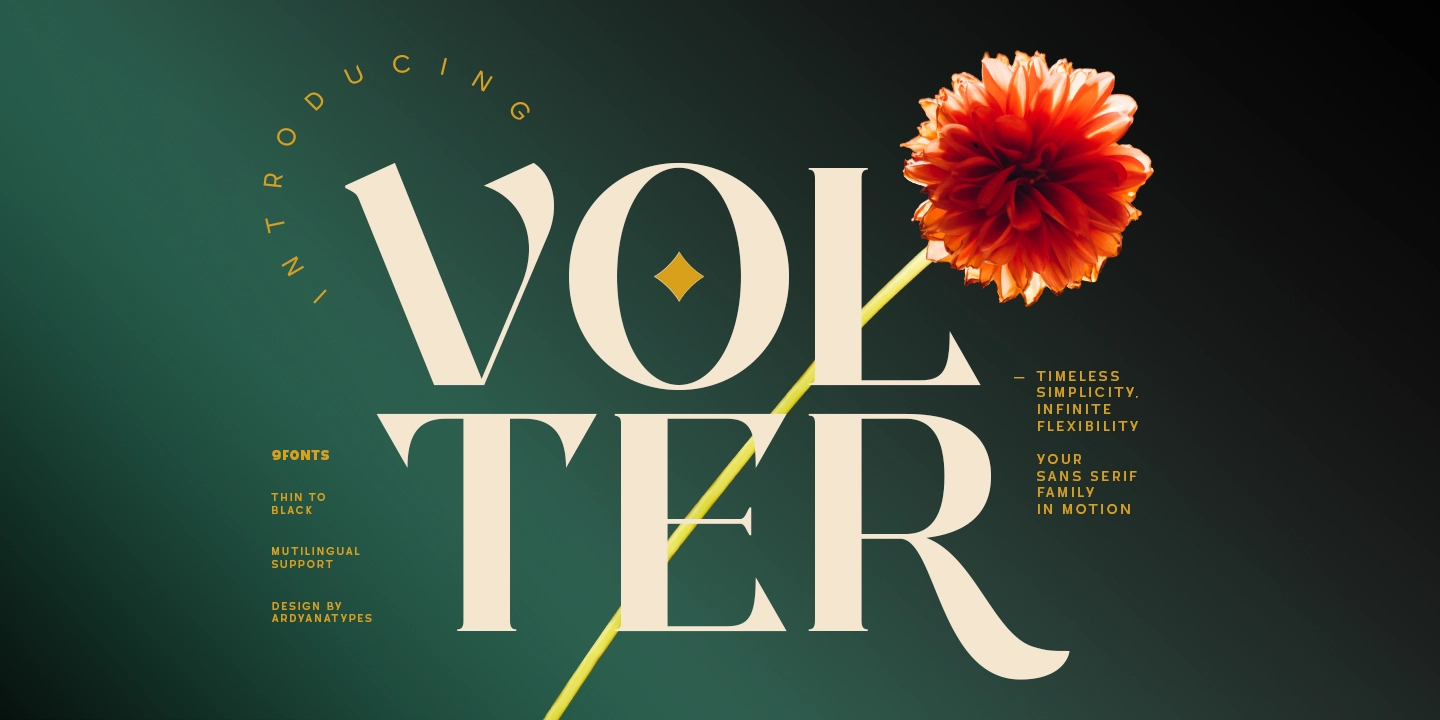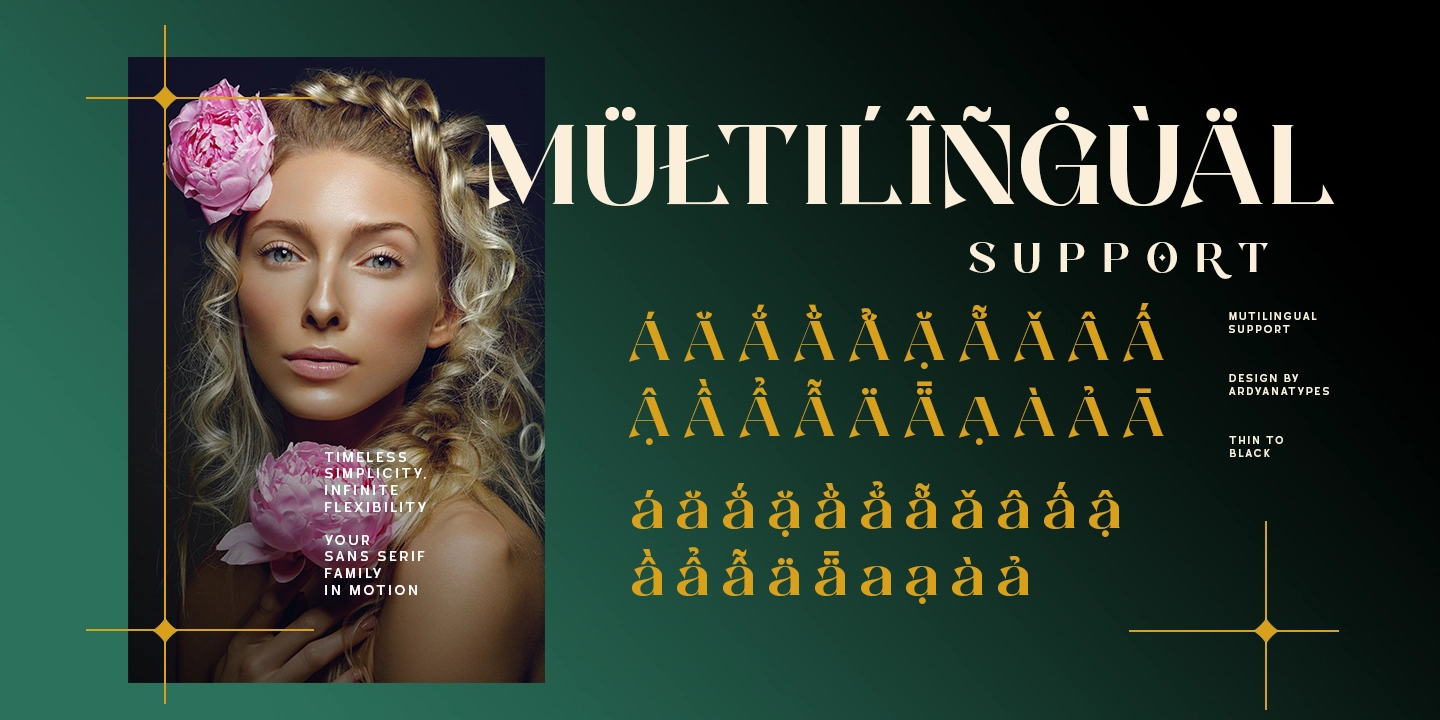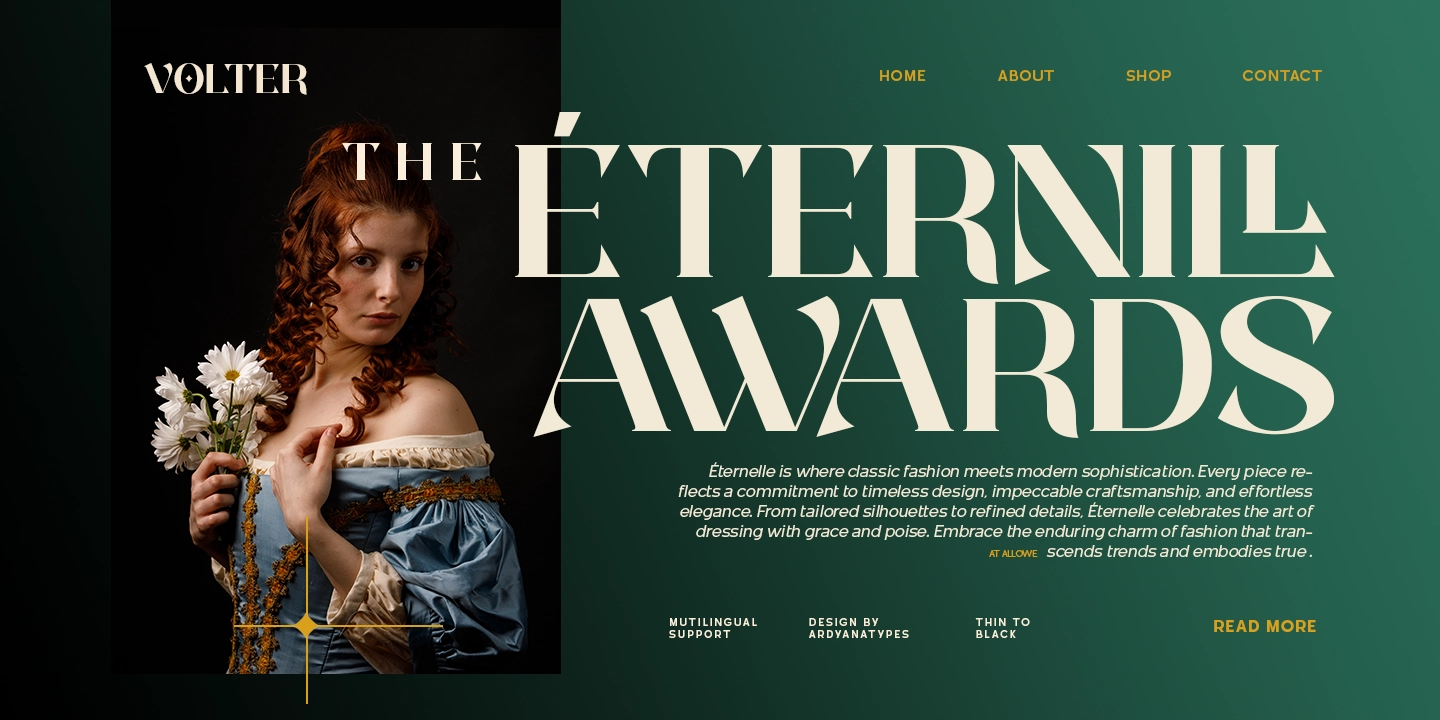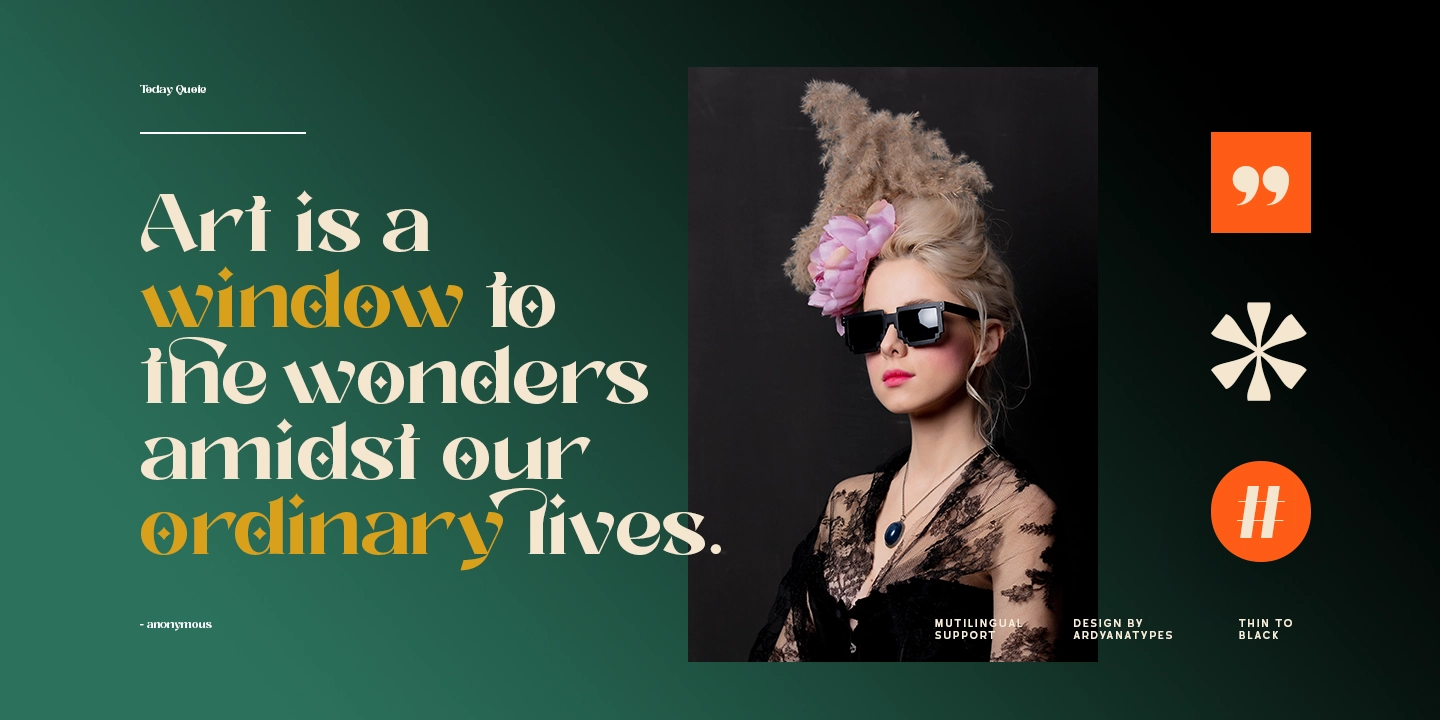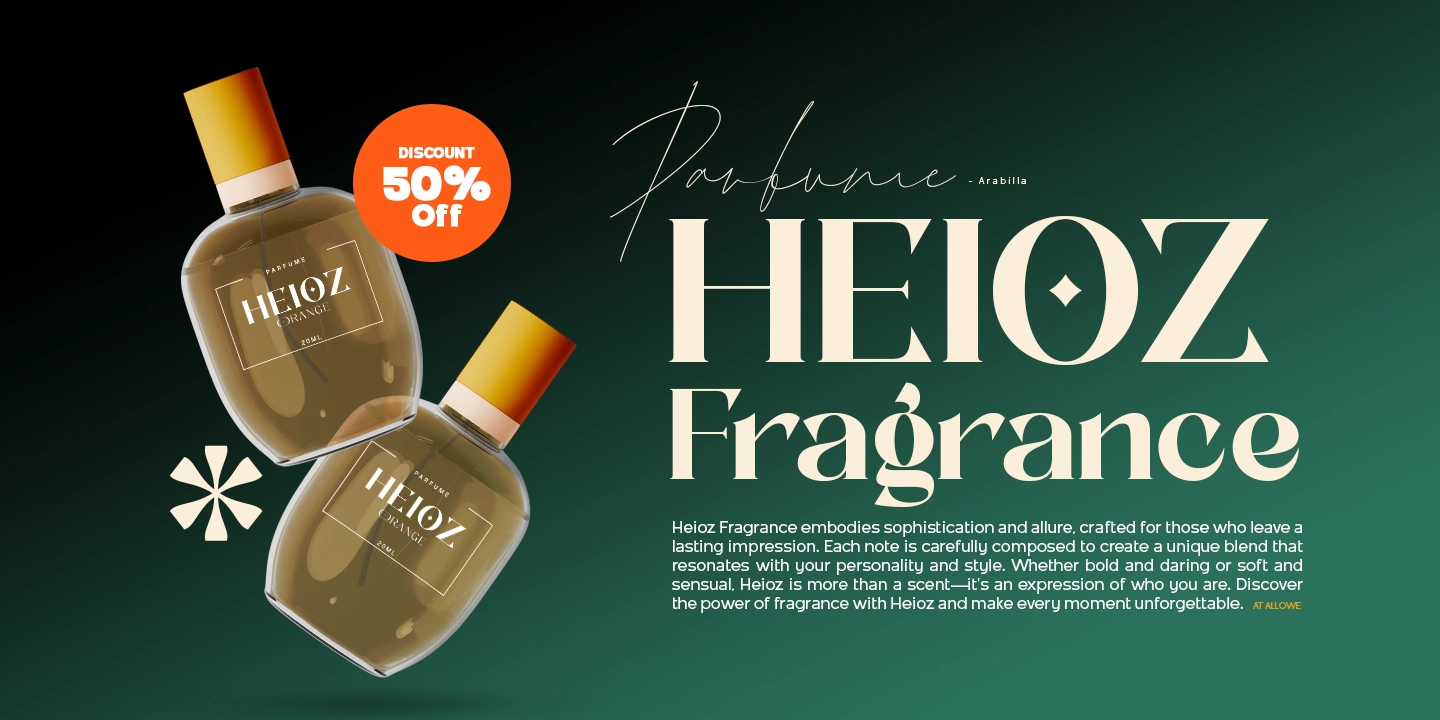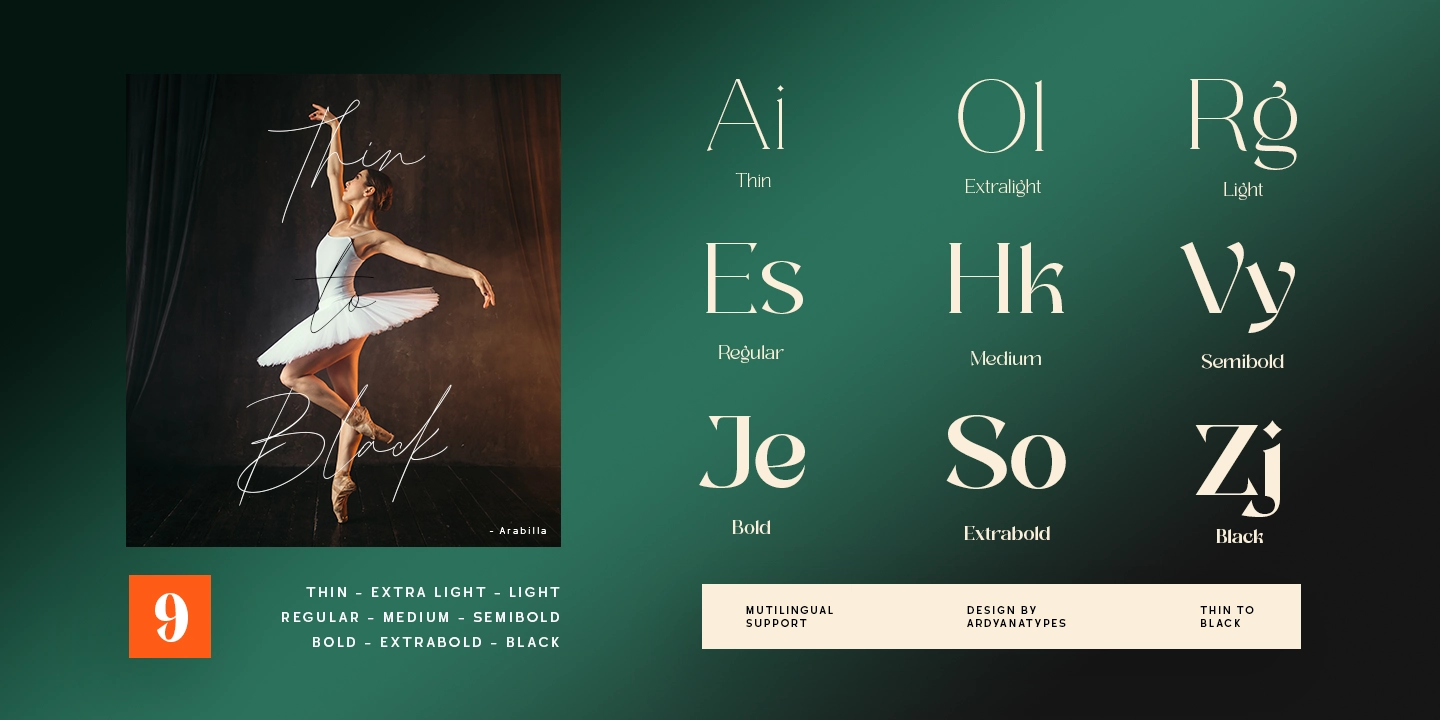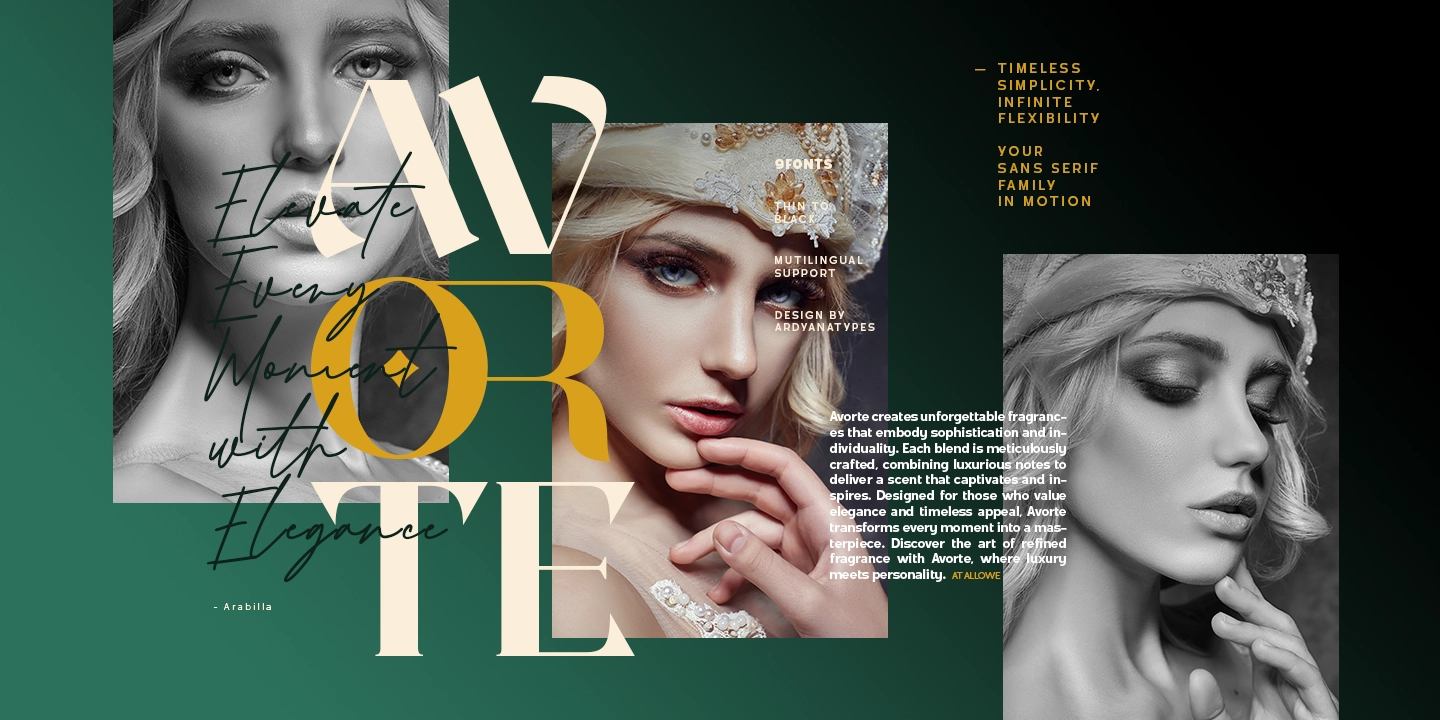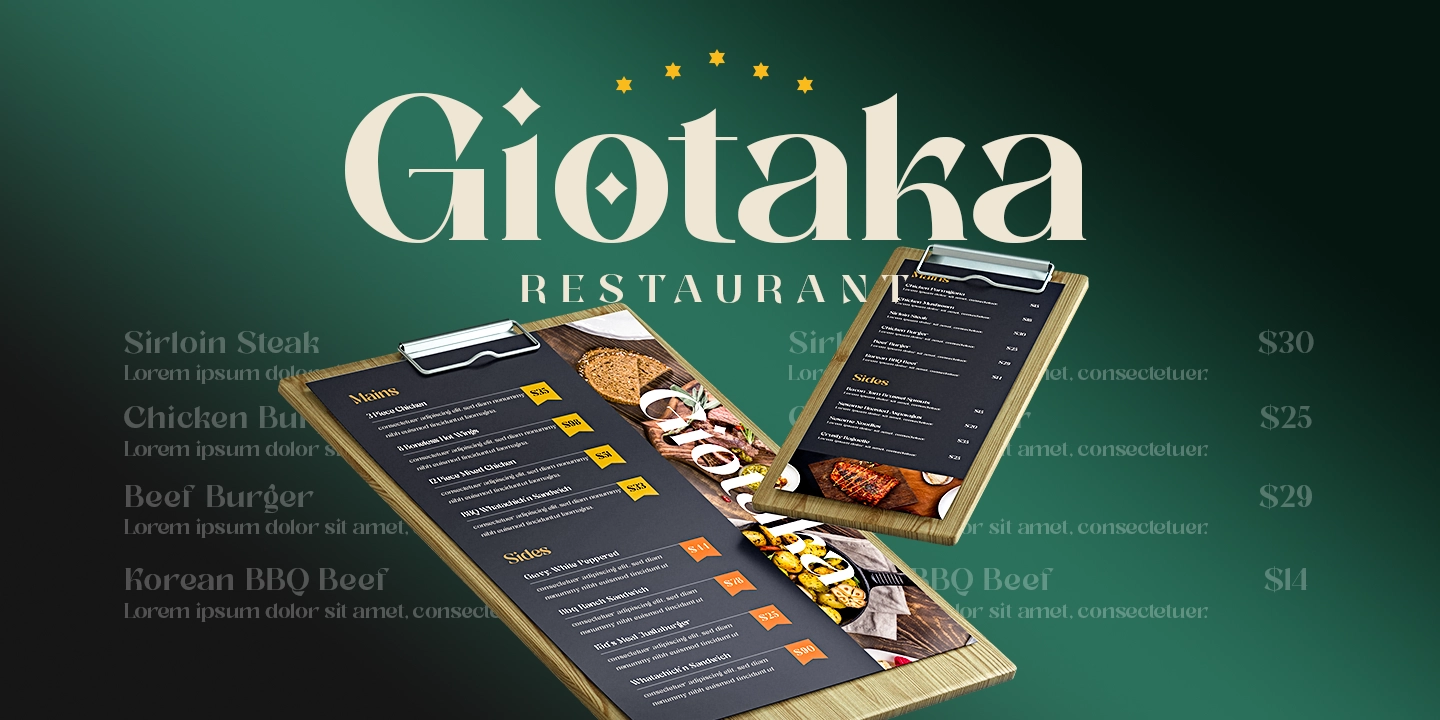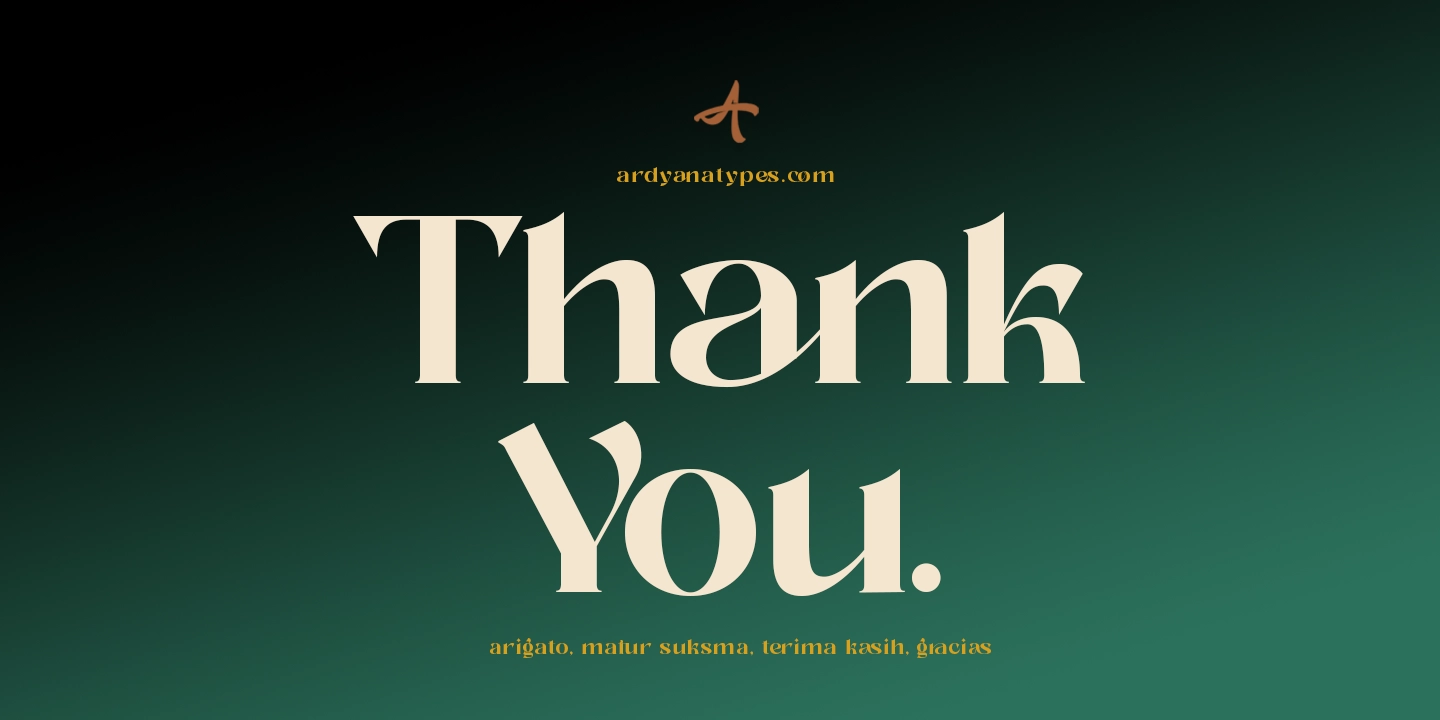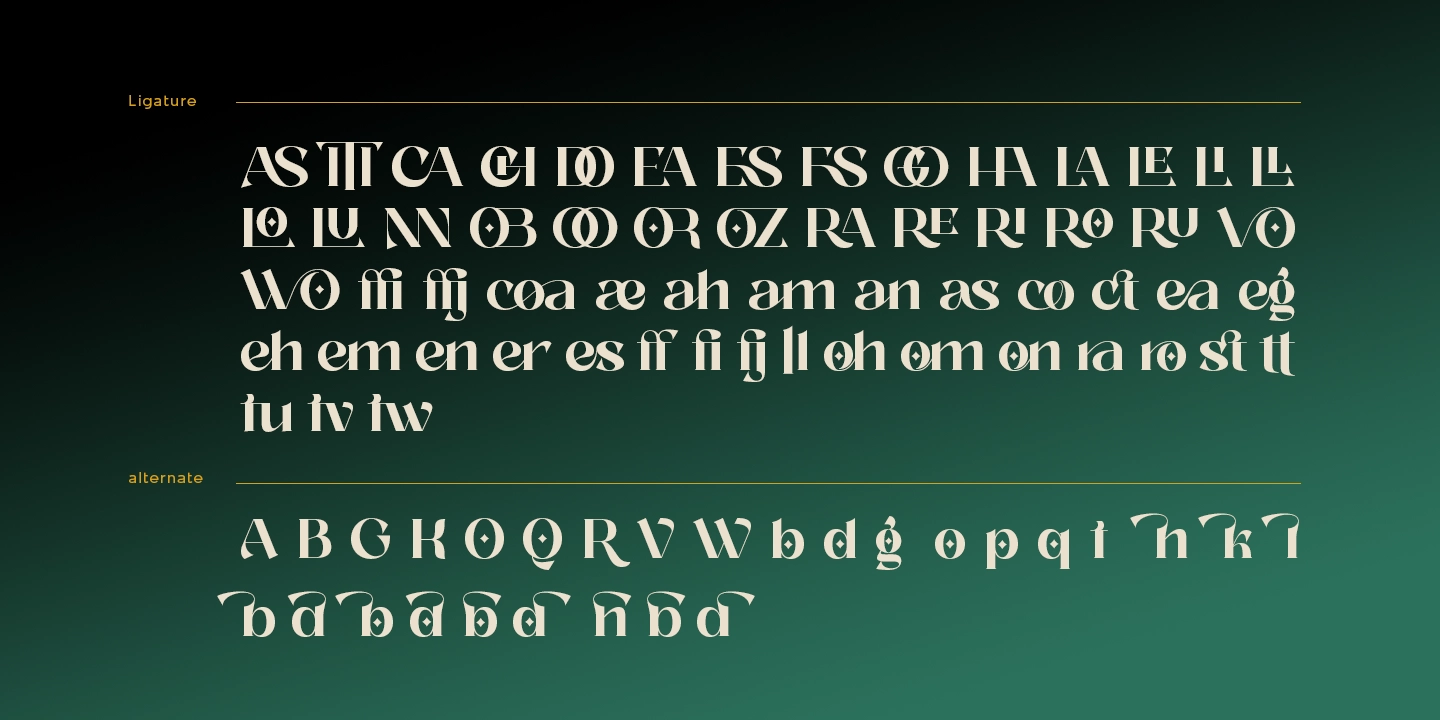
Volter
Volter – A Timeless Serif with Classic & Modern Elegance
Volter is a serif font family that blends classic elegance with modern flexibility. Designed with precision, Volter offers 9 different styles, ranging from Thin to Black, giving designers the freedom to create unique and character-rich works.
With clean letterforms, balanced proportions, and subtle serif-inspired details, Volter is perfect for branding, editorial design, packaging, and UI/UX. This font also supports multilingual compatibility, ensuring seamless use across various global languages.
Volter’s Key Features
9 Font Styles – From Thin to Black
Volter includes 9 weight variations, from Thin (the lightest) to Black (the boldest). This range provides enhanced design flexibility, allowing users to match the font style to their project needs.
Versatile Design – Ideal for Branding, Editorial, and UI/UX
With an elegant yet minimalist appearance, Volter is suited for various design applications, such as:
Branding & Logos – Projects a modern and professional look
Editorial & Magazines – Stylish and readable for both headlines and body text
UI/UX & Web Design – Clean and easily pairs with digital design elements
Multilingual Support – Covering Multiple Languages
Volter is equipped with extensive language support, including special characters from different alphabets. This ensures seamless compatibility in international projects.
Elegant Balance – A Fusion of Classic & Modern
Though a serif, Volter retains a classic touch, making it more refined than typical serif fonts. Its subtle letterform details add a distinctive character not commonly found in other fonts.
Premium Aesthetic – Elevate Your Design with Luxury Appeal
Beyond its modern look, Volter exudes a high-end aura, making it ideal for luxury branding, exclusive websites, and elegant packaging. This font guarantees a professional and sophisticated impression.
• ITI ITI
• coa coa
• ffi ffi
• ffj ffj
• AS AS
• CA CA
• CH CH
• DO DO
• EA EA
• ES ES
• FS FS
• GO GO
• HA HA
• LA LA
• LE LE
• LI LI
• LL LL
• LO LO
• LU LU
• NN NN
• OB OB
• OO OO
• OR OR
• OZ OZ
• RA RA
• RE RE
• RI RI
• RO RO
• RU RU
• VO VO
• WO WO
• ae ae
• ah ah
• am am
• an an
• as as
• co co
• ea ea
• eg eg
• eh eh
• em em
• en en
• er er
• es es
• fj fj
• oh oh
• om om
• on on
• ra ra
• ro ro
• tu tu
• tv tv
• tw tw